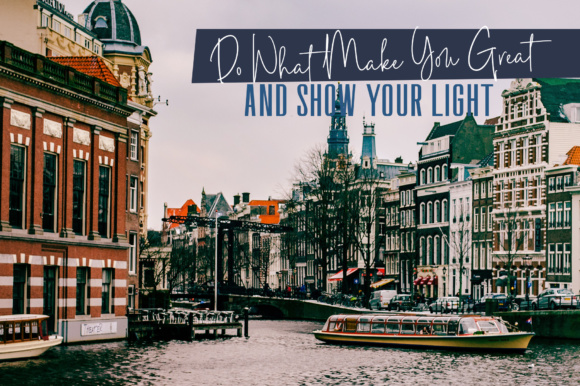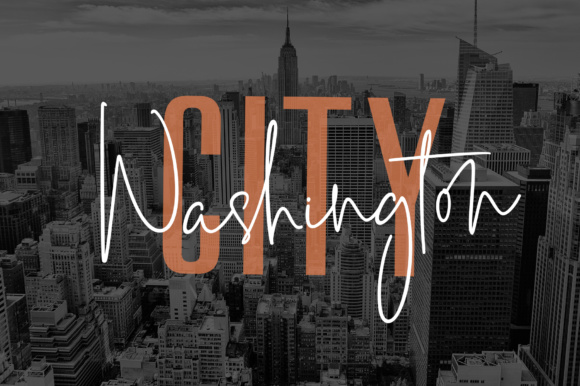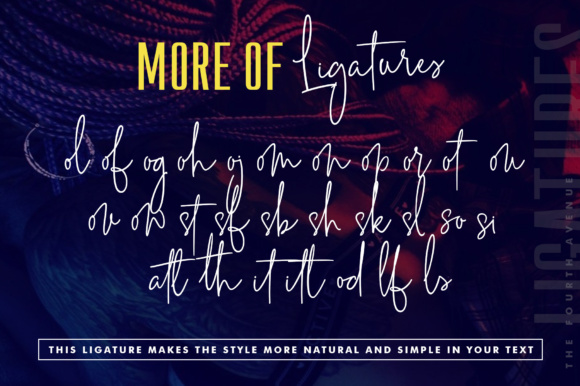
About The Fourth Avenue Font
The Fourth Avenue is a classy and contemporary pair of fonts, stylish and perfect for a wide range of designs. This script and sans serif font pairing is a great way to add typographic harmony to your most special graphic design projects. Add this lovely freebie to your creations and take your designs to the next level!